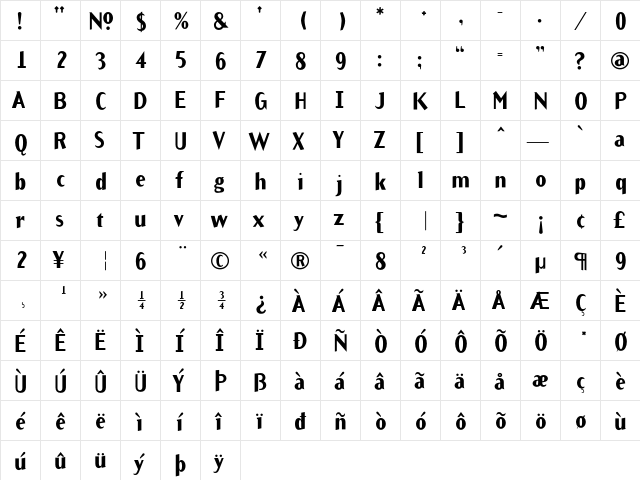
ArbitraryBold Regular
Design Context for ArbitraryBold Typeface
ArbitraryBold takes a measured approach to typography — its balanced proportions and neutral character make it a reliable workhorse for both digital and print work. Its bold stroke weight gives it real presence on the page.